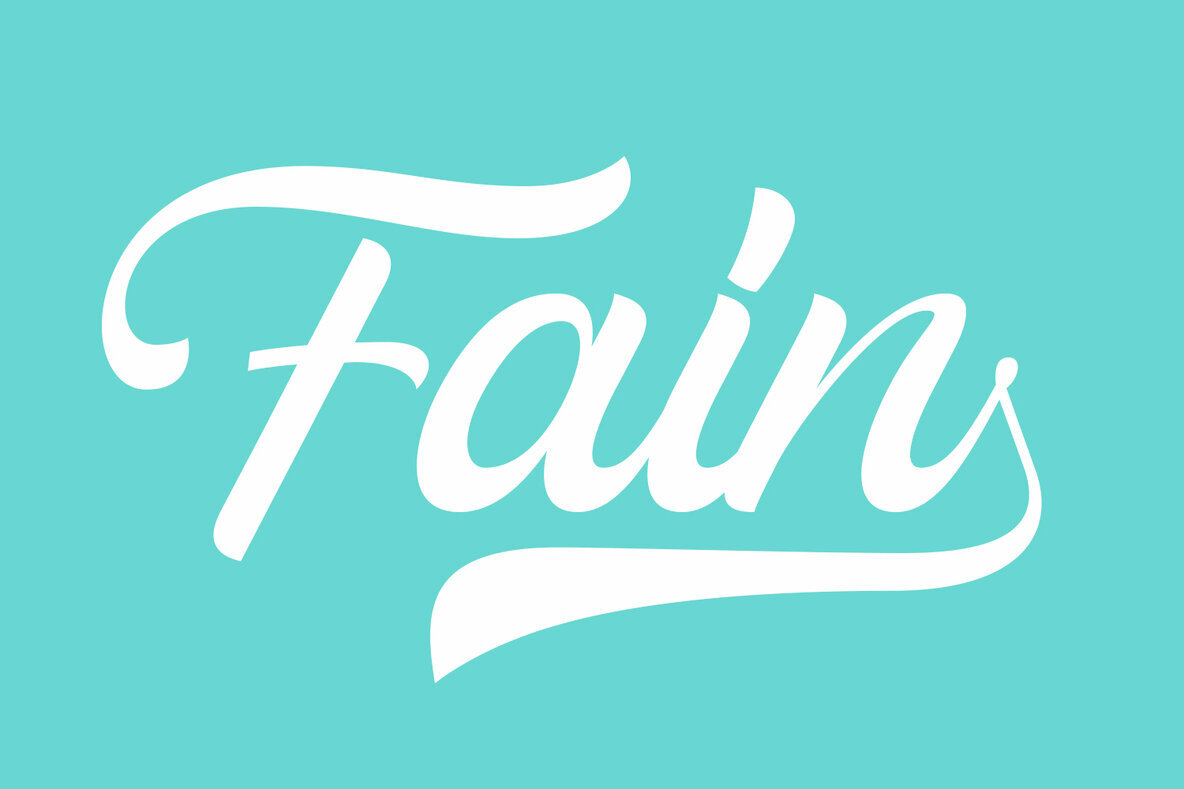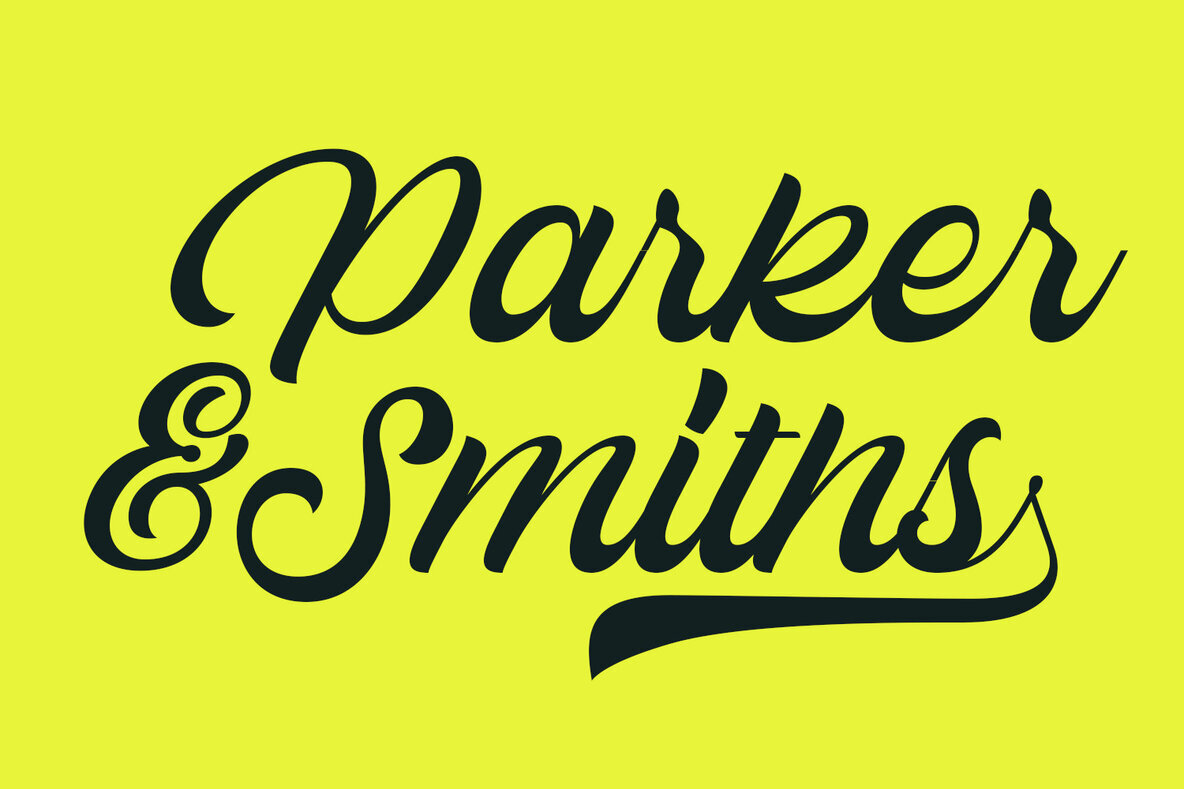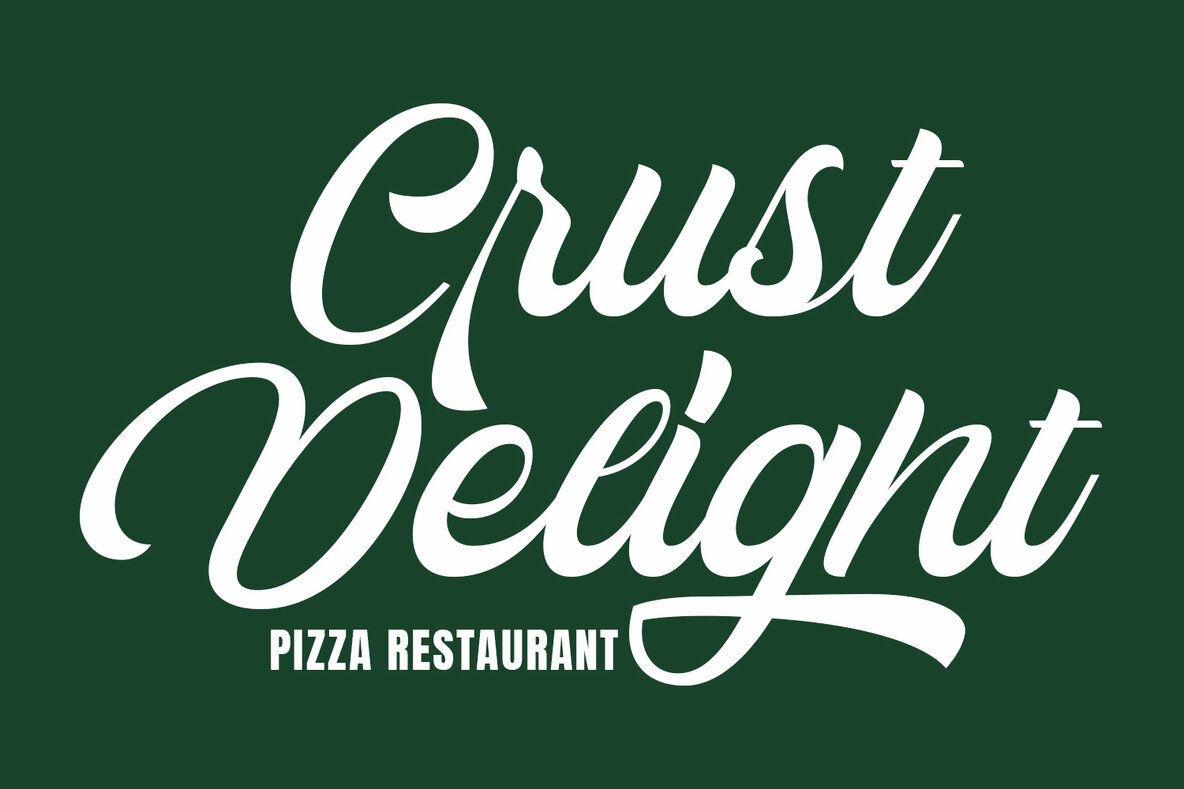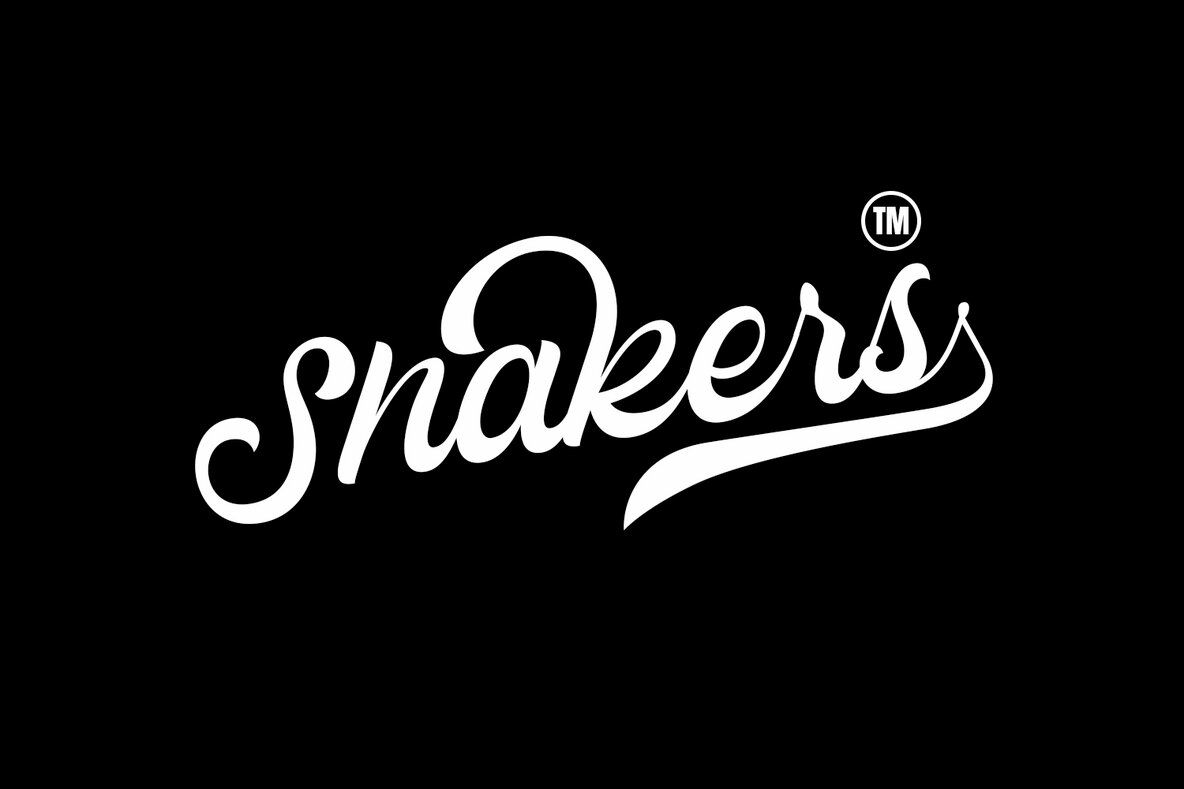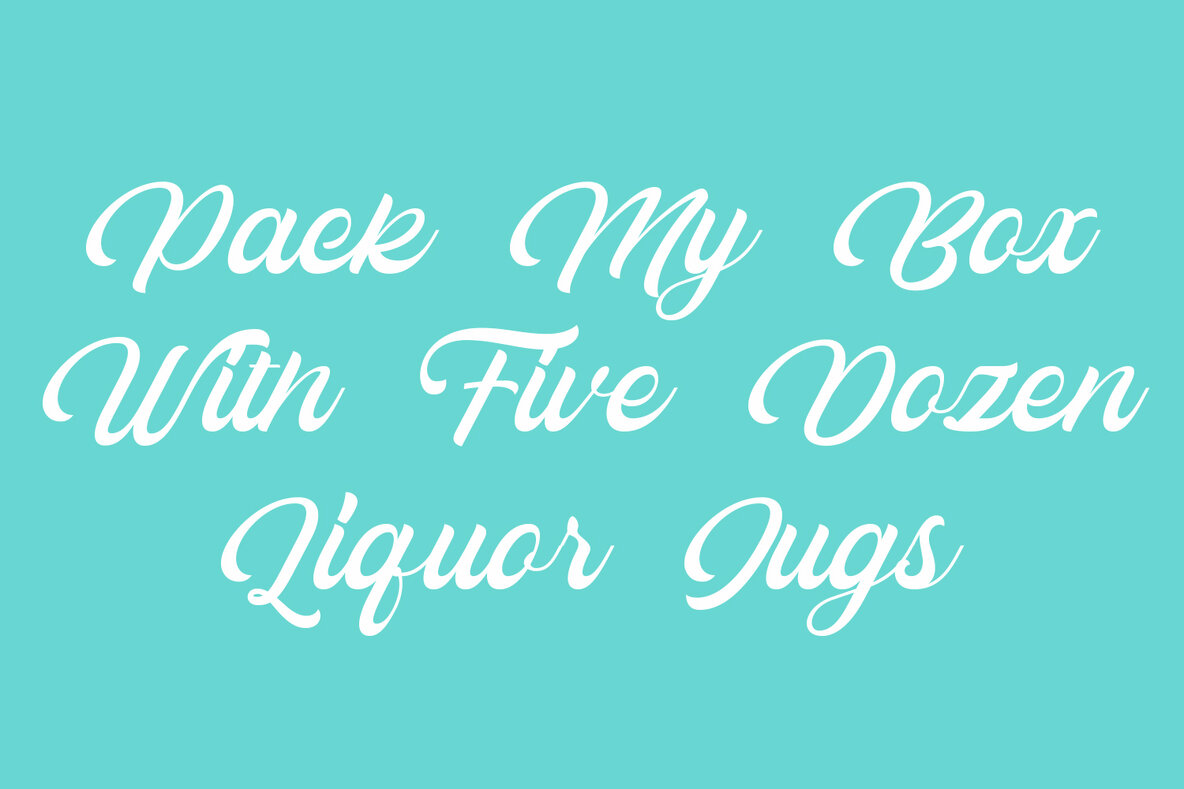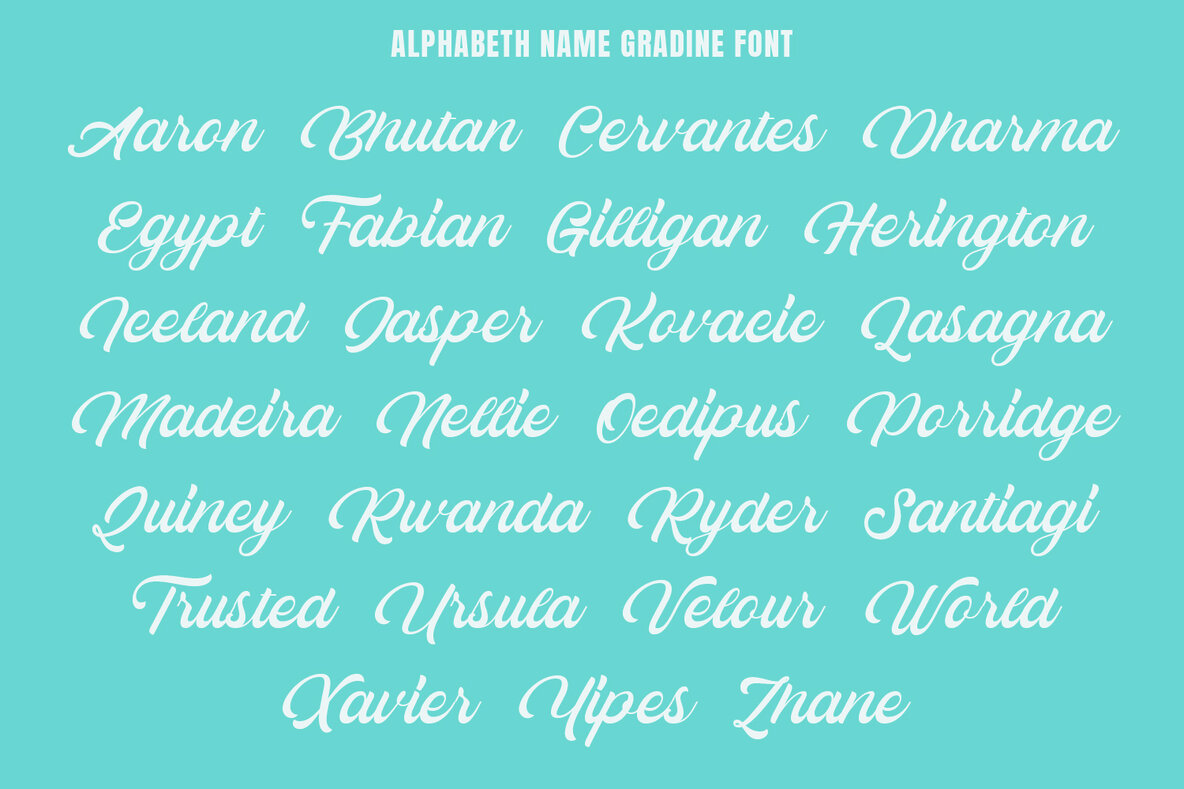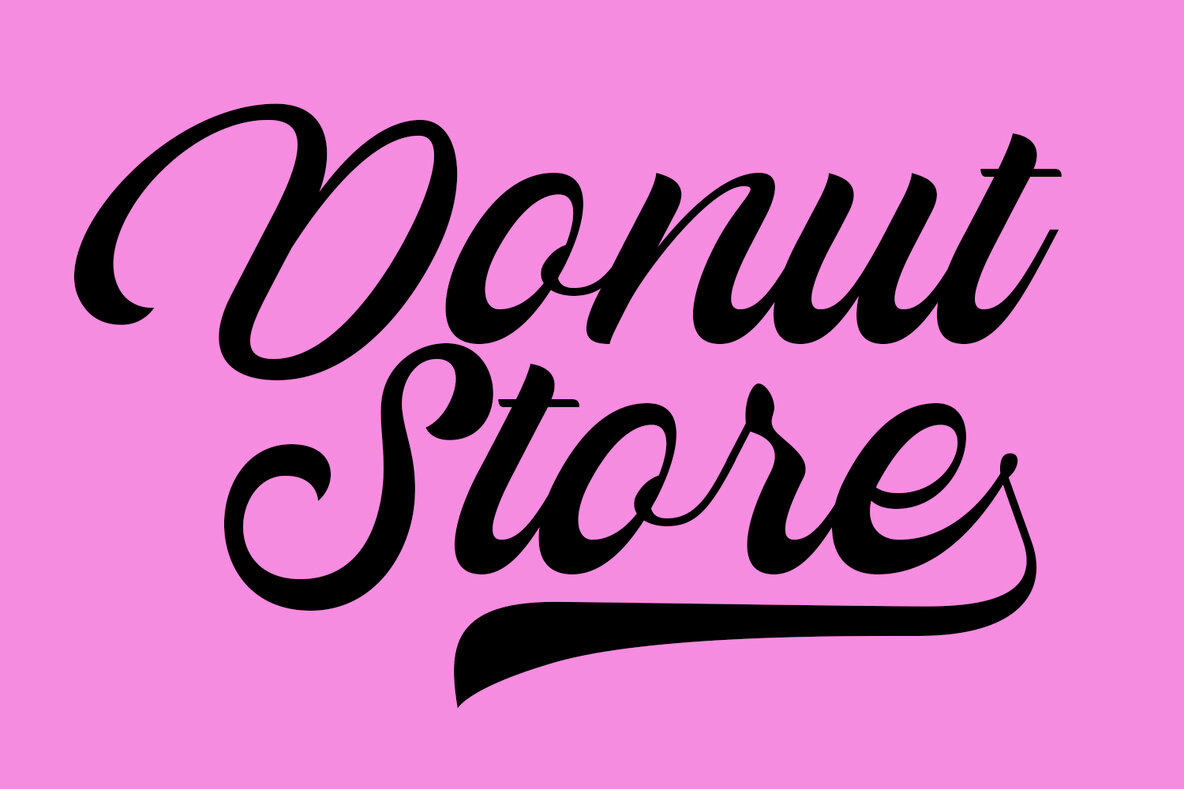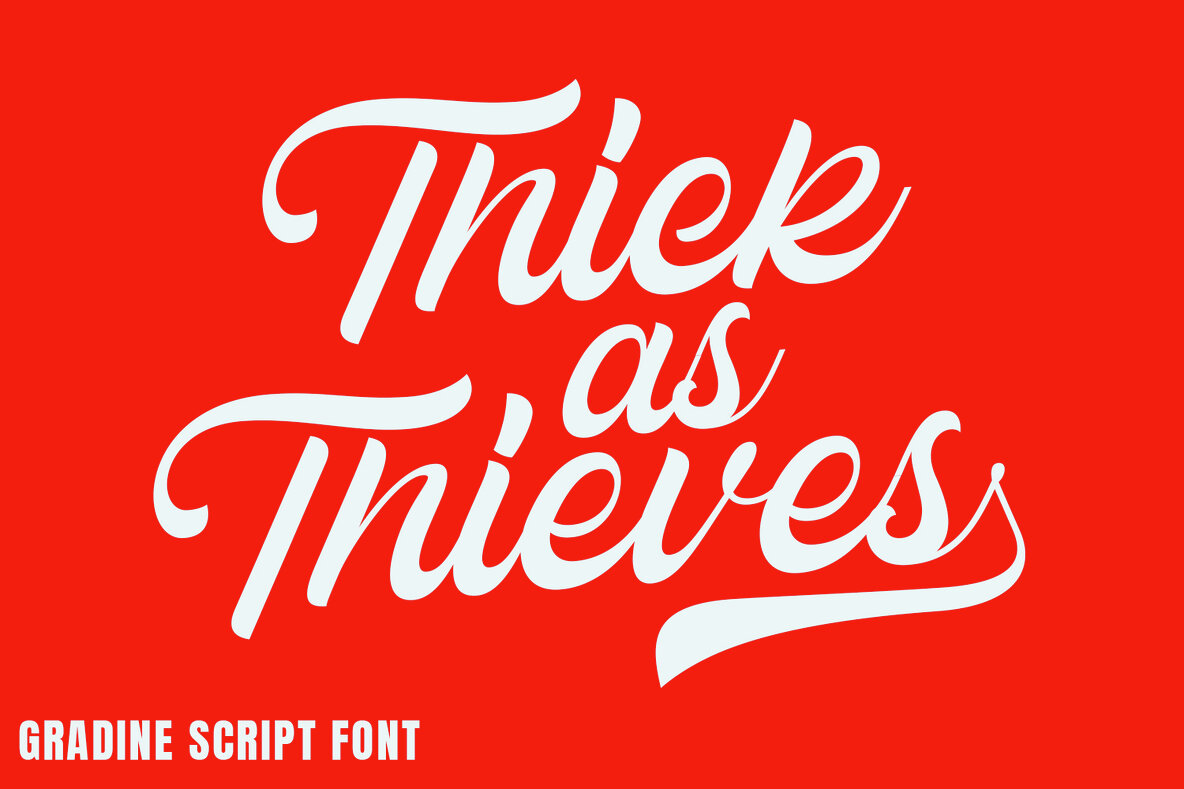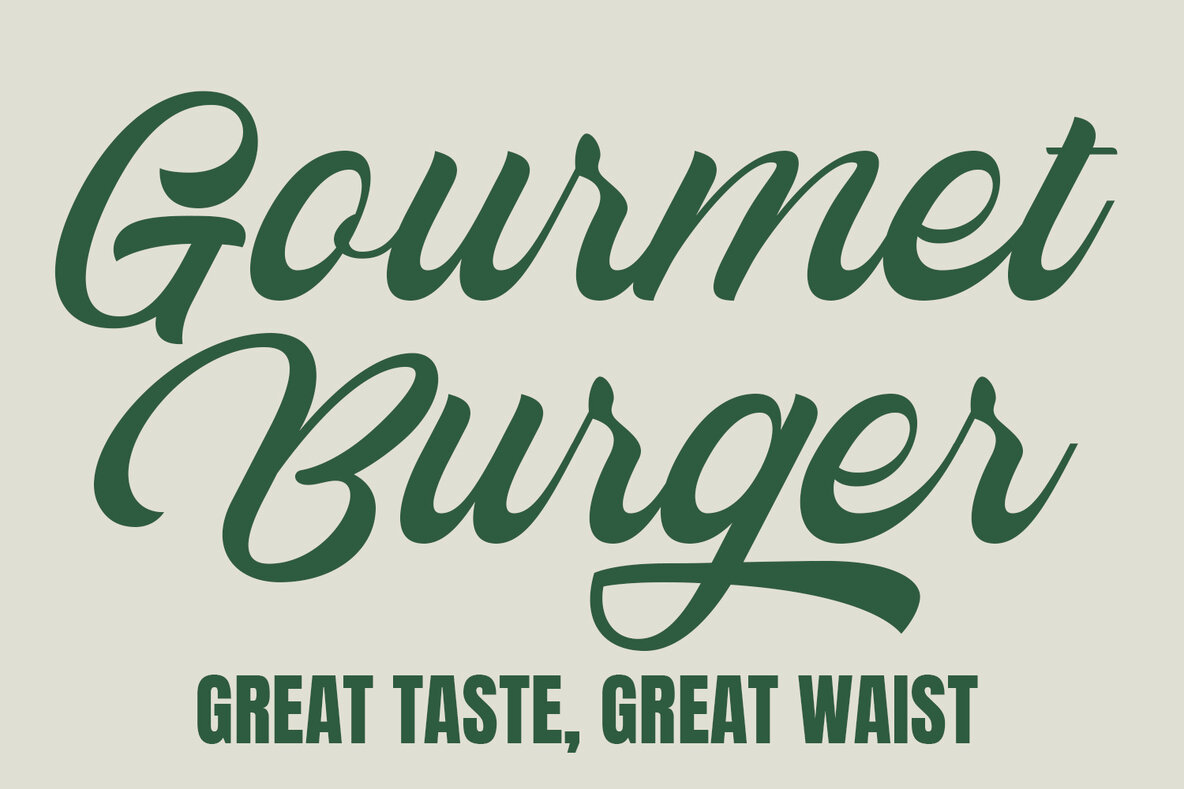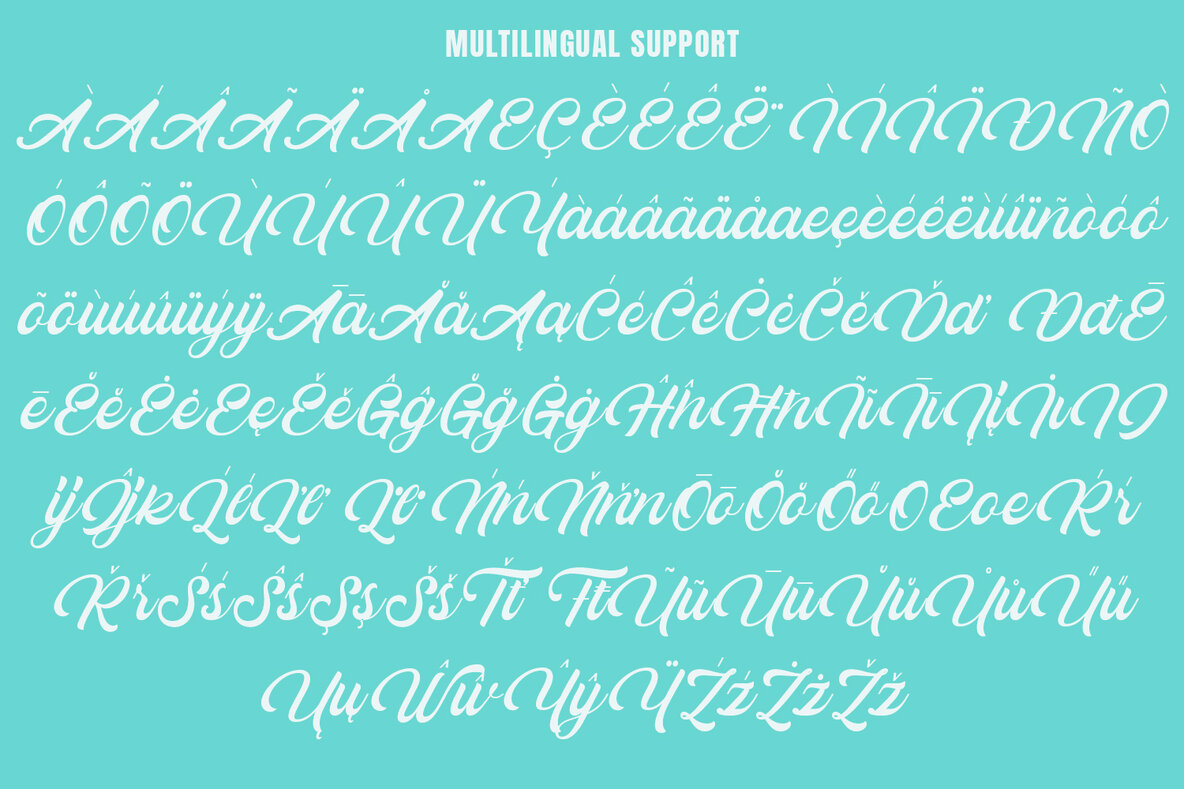
Gradine Font
Gradine Regular
Gradine Script is an elegant and sophisticated script font notable for its graceful and dynamic strokes that add a touch of style to any design project. Its beautifully flowing, connected letters mimic fine handwriting, exuding a sense of elegance and refinement. Whether you are crafting wedding invitations, designing branding materials, or enhancing editorial projects, Gradine Script offers delicate curves and stylish flourishes that provide a polished appearance suitable for varied applications.
Designed with versatility in mind, Gradine Script includes an extensive character set featuring uppercase and lowercase letters, numerals, and punctuation marks. The availability of stylistic alternates allows for personal customization, while specially designed ligatures ensure smooth text flow and enhanced readability. With the addition of swashes and flourishes, this font provides extra decorative elements for increased elegance. Perfect for logos, wedding stationery, product packaging, and more, Gradine Script transforms every design into a sophisticated work of art.